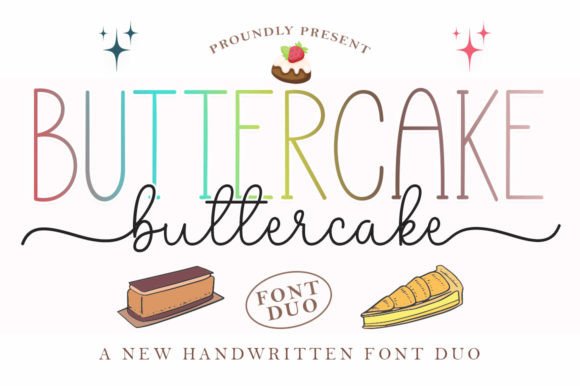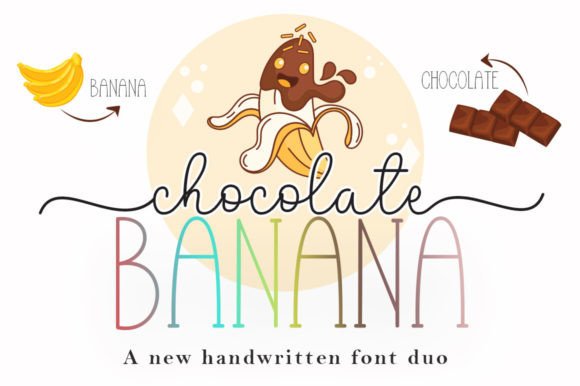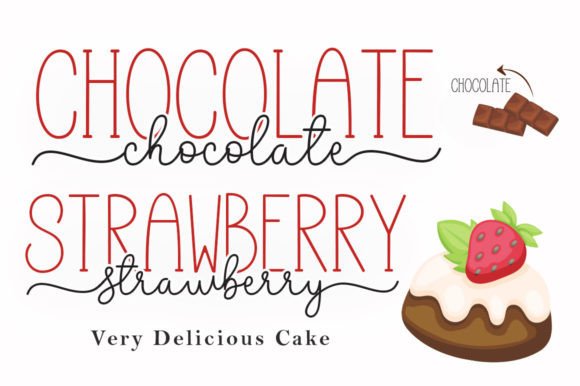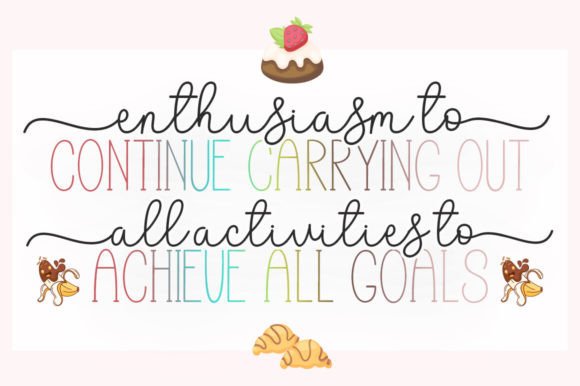
Butter Cake Duo Font
About the Butter Cake Duo Font
Explore the possibilities with Butter Cake Duo Font, a font that offers both beauty and functionality. Experience the versatility of the Butter Cake Duo, an elegantly smooth duo font blending the best aspects of sans serif and script. Its unique character adds a touch of romance to any creation, be it a heartfelt greeting card or an eye-catching headline. Imbued with PUA encoding, this typeface offers easy access to a cornucopia of glyphs and ligatures, guaranteeing a flawless integration into any design backdrop.
Butter Cake Duo’s elegant, slightly romantic personality makes it ideal for headlines, short-form text, branding projects emphasizing sophistication, and packaging design for premium products. It excels in creating a visually appealing and memorable impact in these contexts. However, its script element and decorative qualities make it less suitable for body text or lengthy paragraphs, and its delicate nature might be lost in small UI elements.
Pairing Butter Cake Duo with a clean sans-serif like Montserrat for body text provides excellent contrast and readability, while a geometric sans-serif such as Futura adds a modern touch. For a more traditional feel, consider a classic serif like Garamond.
The font’s overall mood is sophisticated and friendly, lending itself to brands focused on quality, craftsmanship, or luxury goods. It offers a touch of vintage charm without feeling dated, making it versatile for a range of applications.